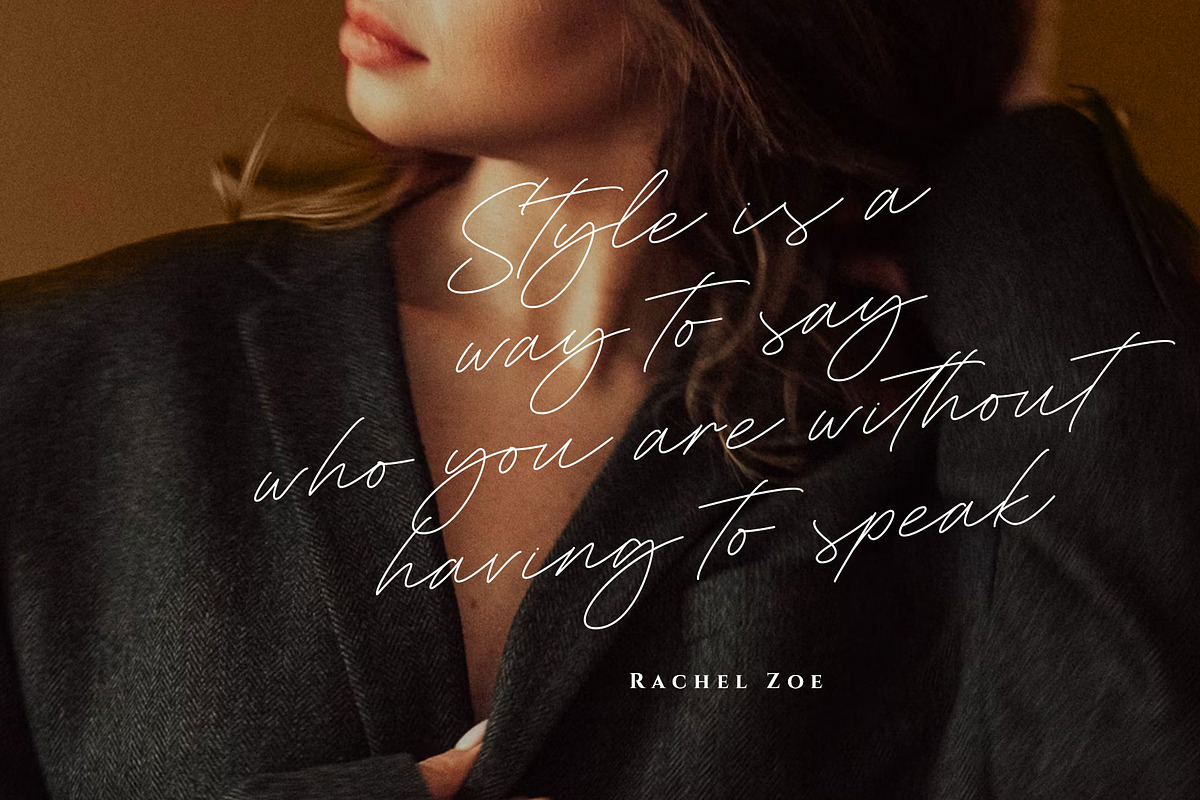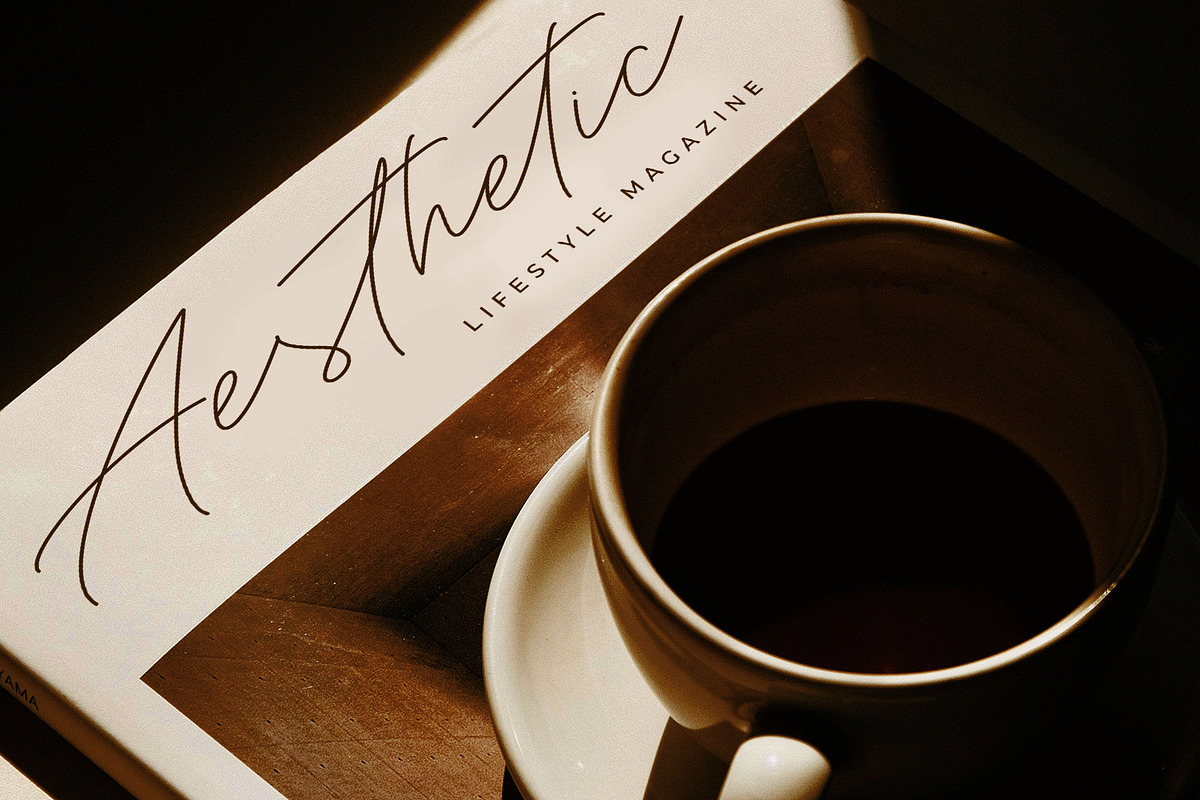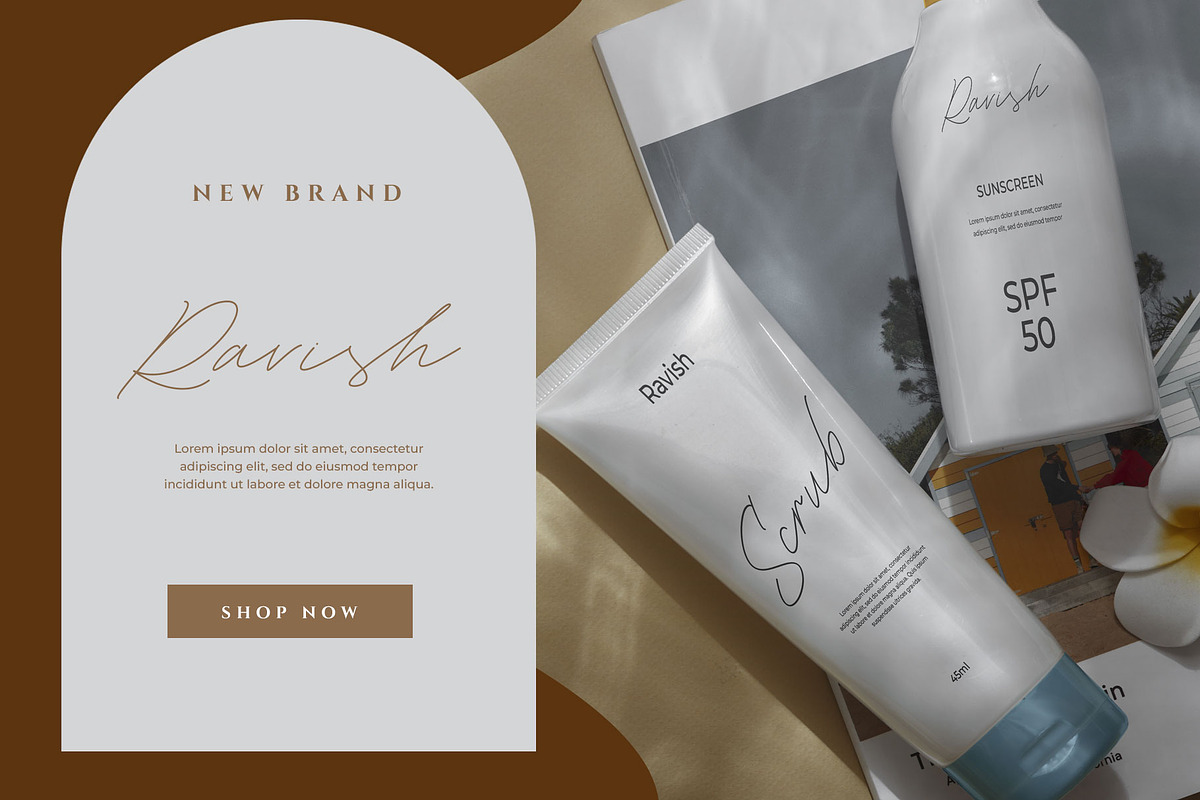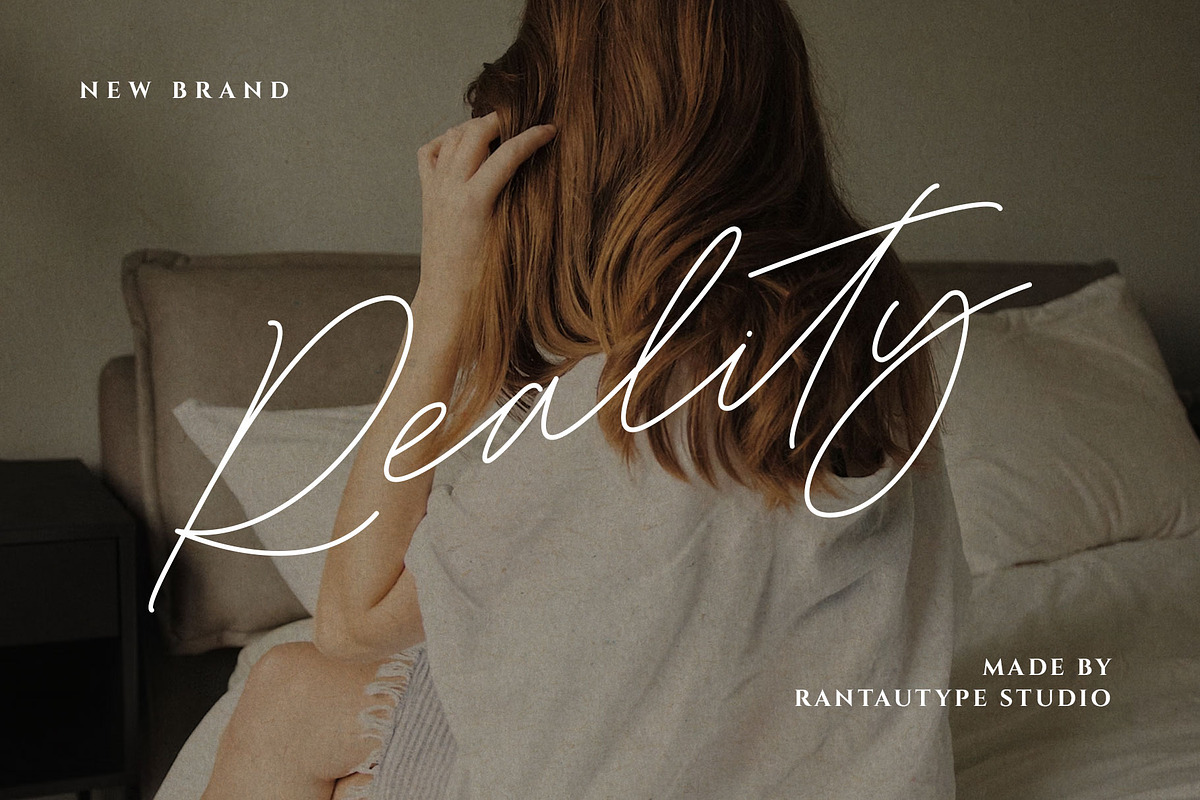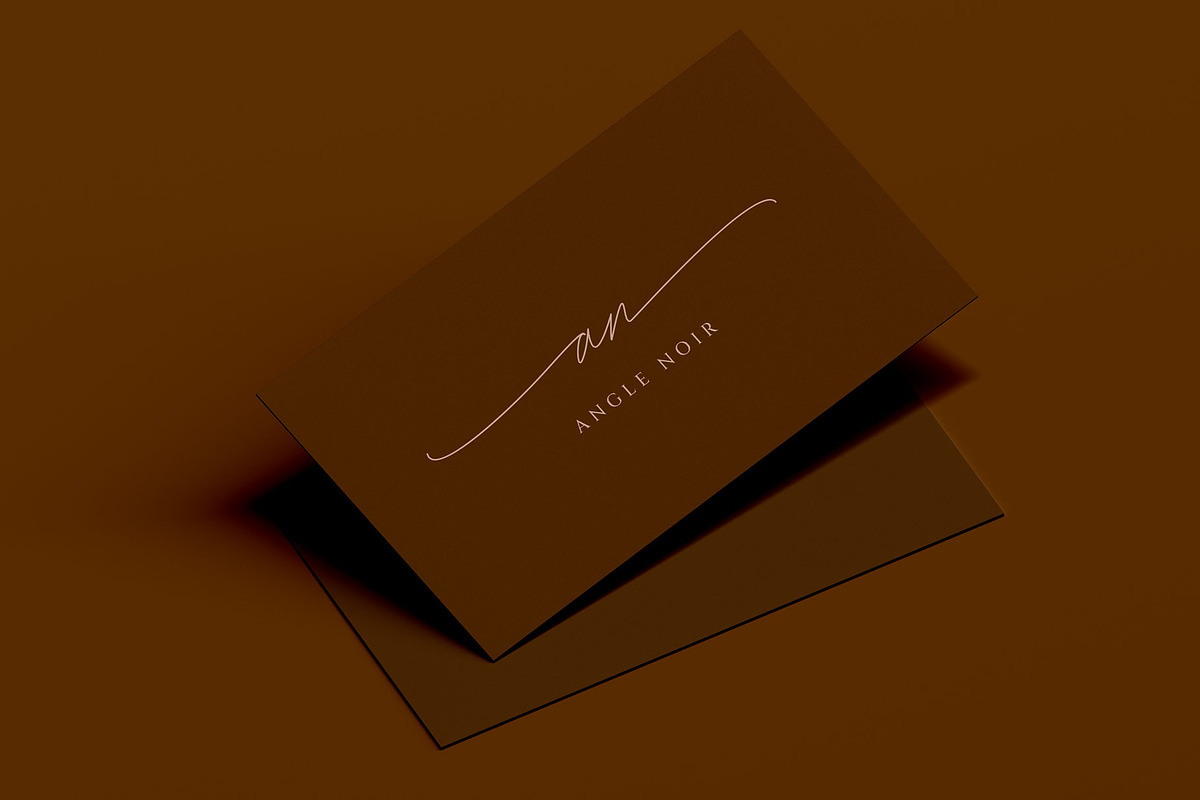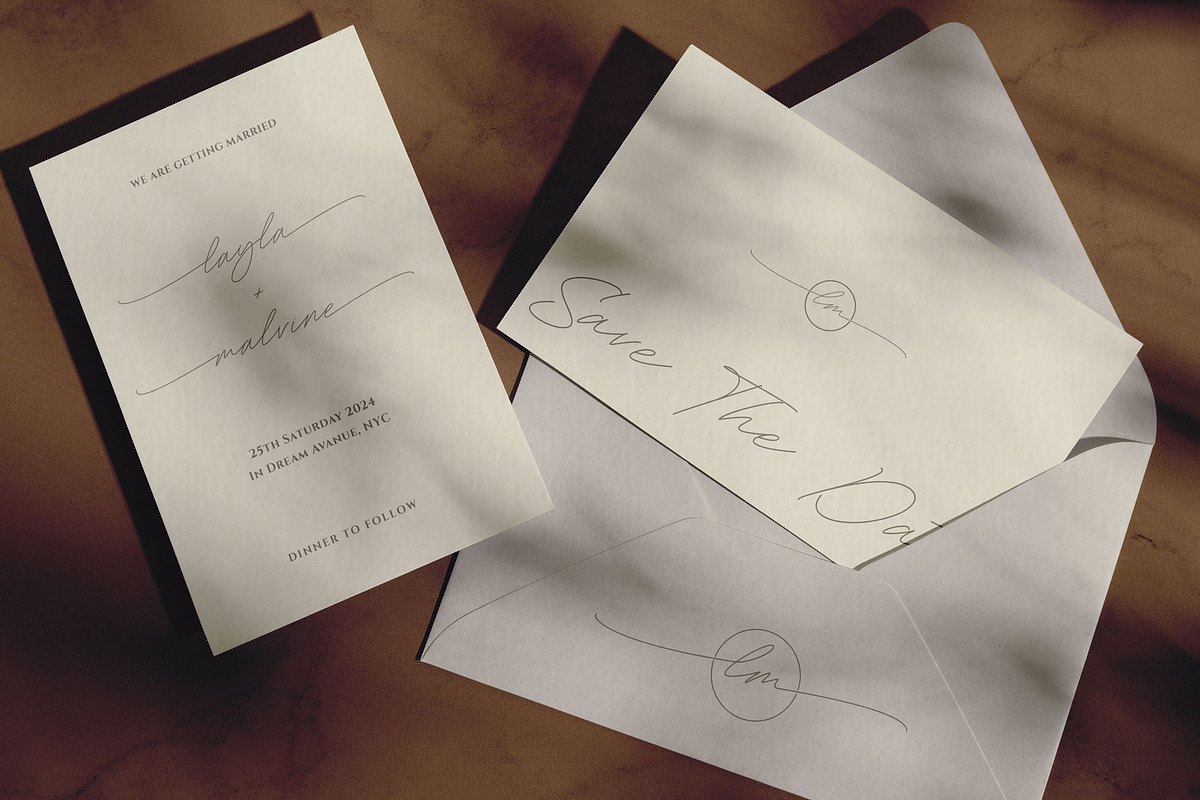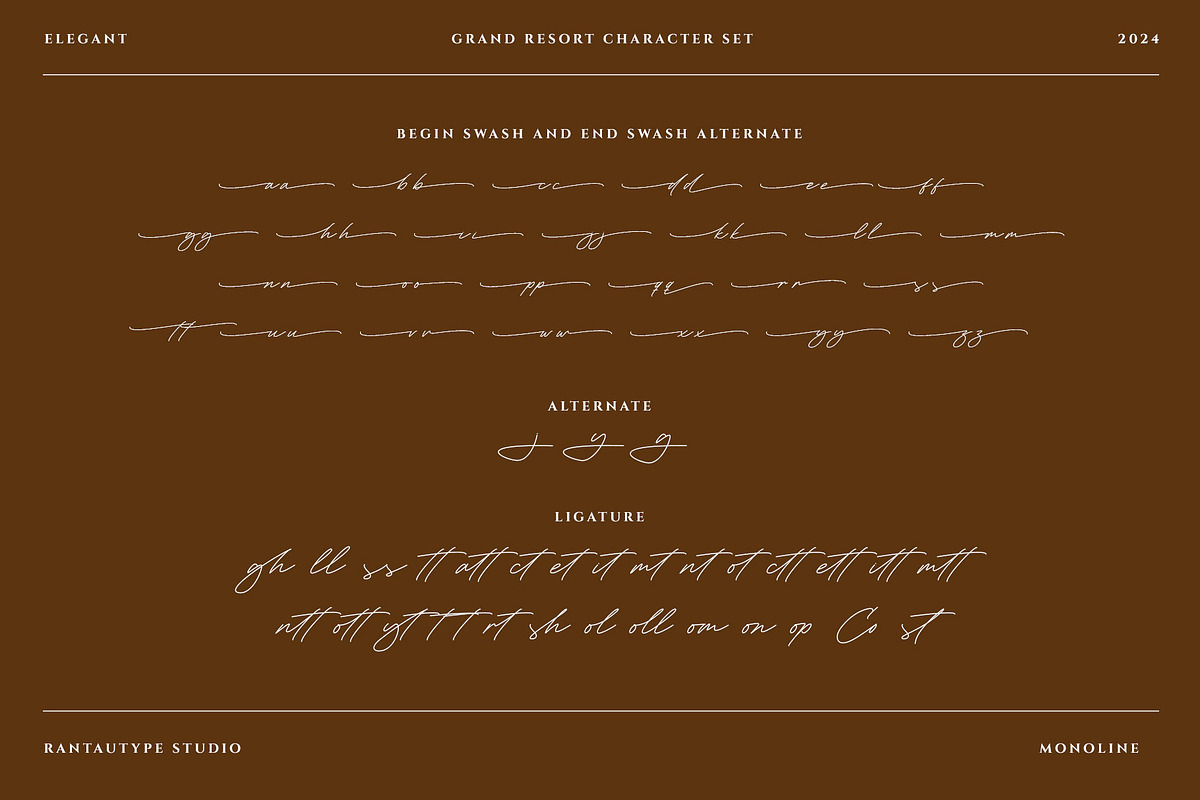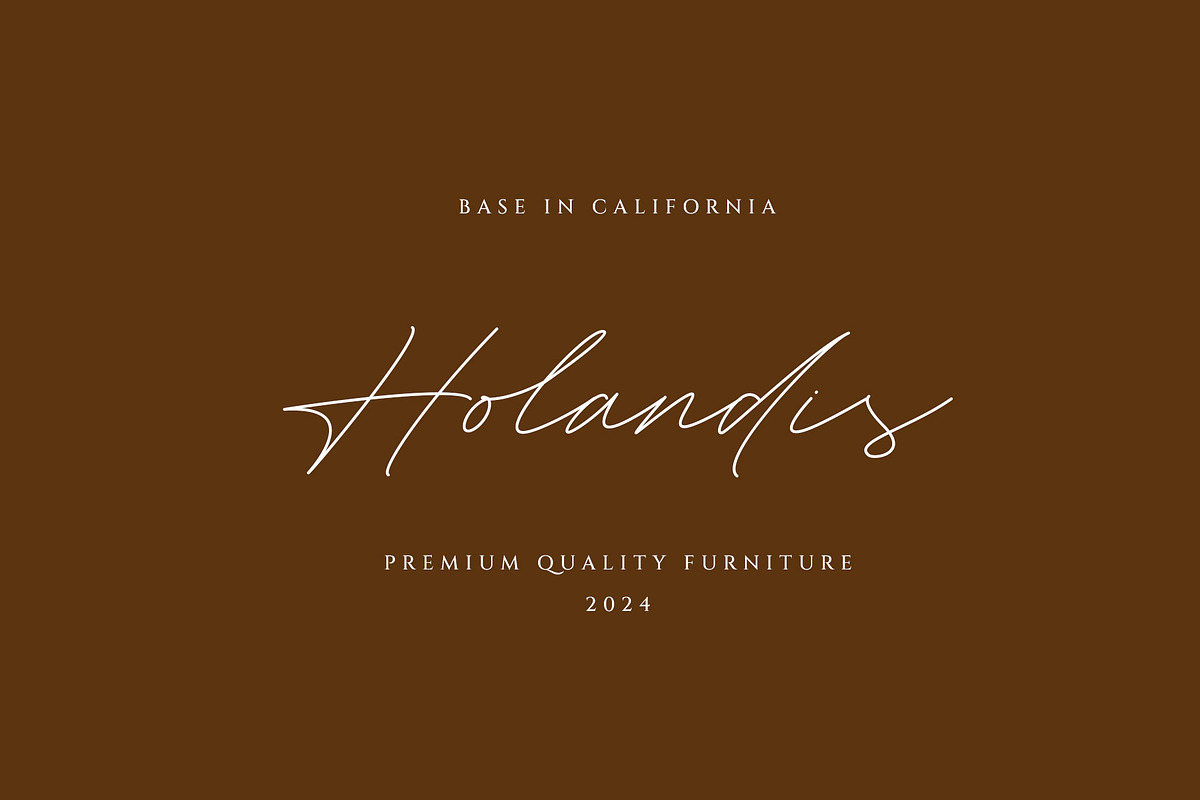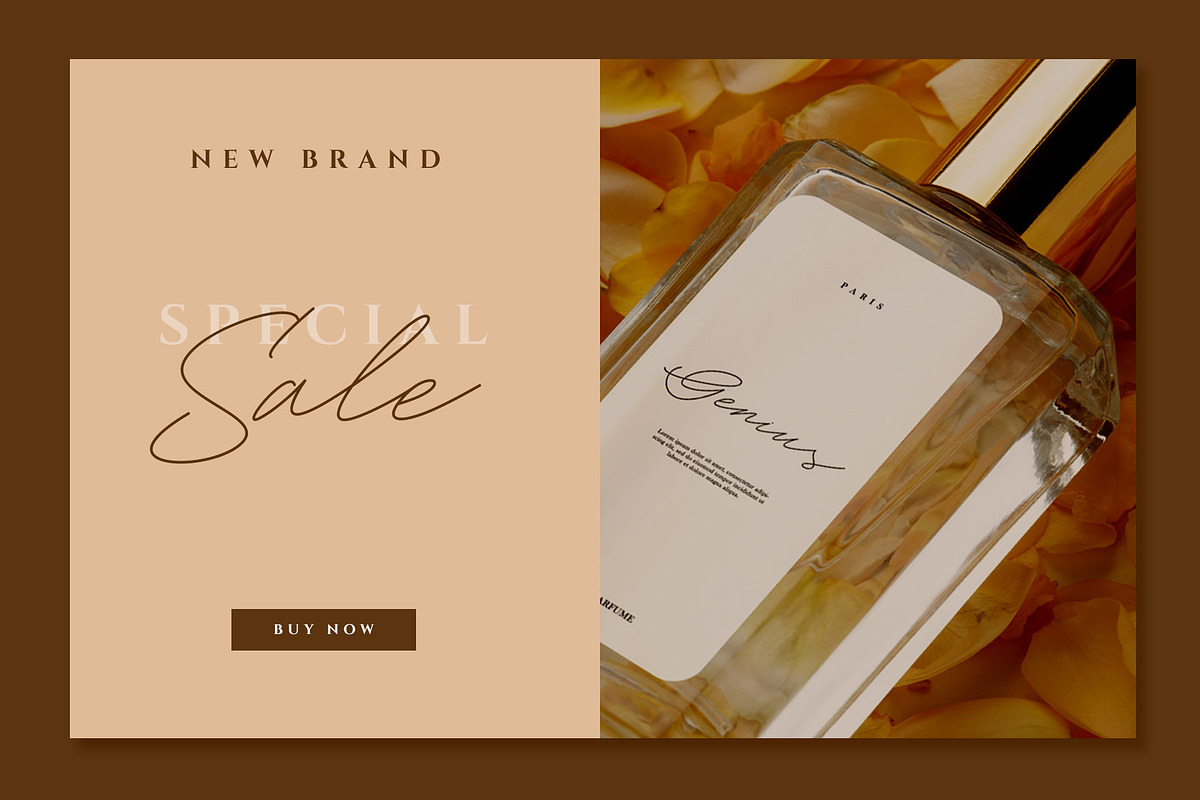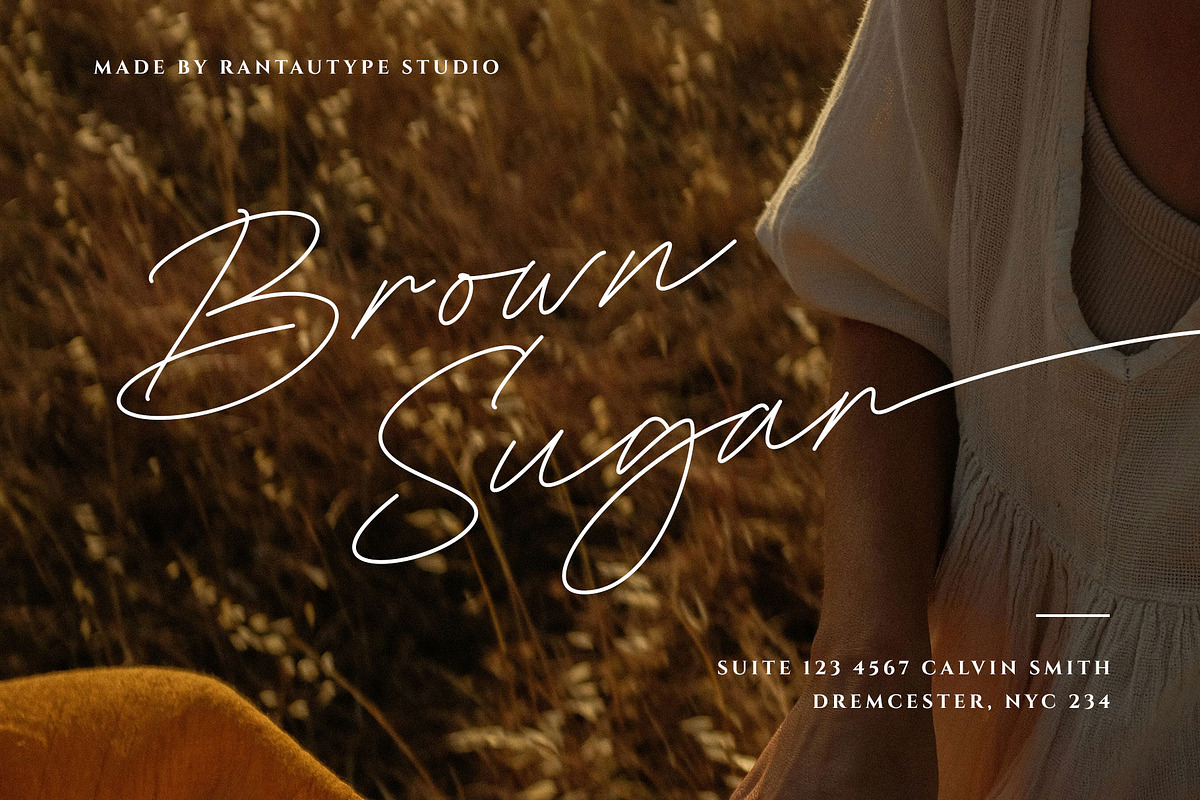
Grand Resort Elegant Monoline Script
Grand Resort is elegant monoline font which can be interpreted professional. Grand resort come with soft flow and stylish curve that embrace elegance and grace. Its delicate curves and refined details create a sense of sophistication and femininity.
Grand Resort is a perfectly choice for any creative endeavor, chic, lifestyle design such as logos, advertisements, watermark on photography, stationery, branding project, display and magazine, invitation, corporate brand, product design, label, business project and other project with handwritten taste.
- Standart Glyphs
- Alternate and Ligature